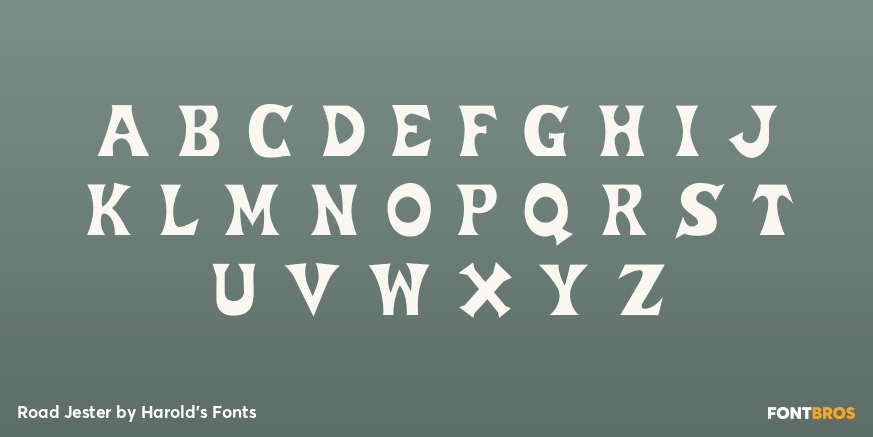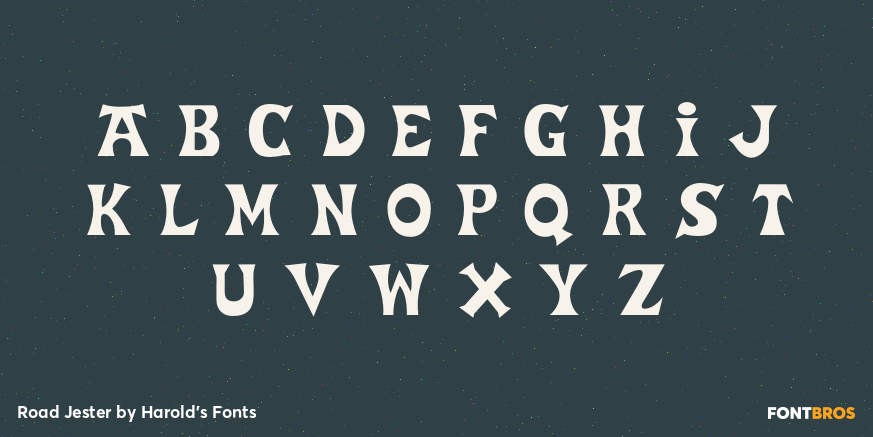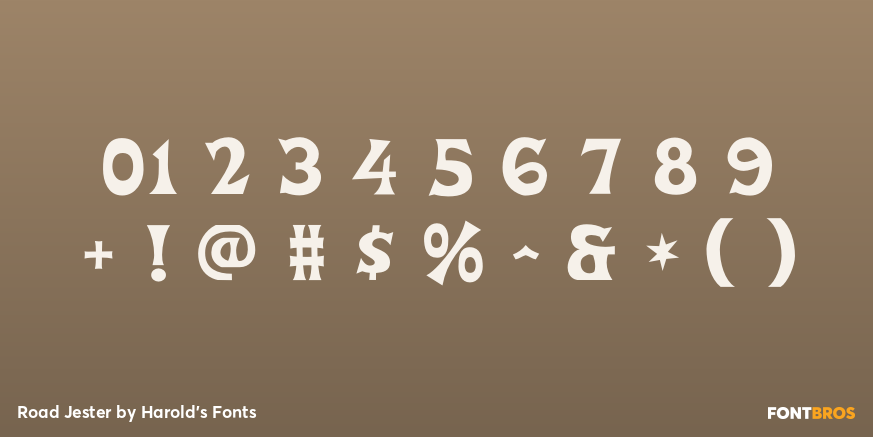
Road Jester
Font Family by Harold's Fonts
ROAD JESTER is bold and playful, suggesting the hand-lettered signs you might find in a sleepy beach town. Road Jester was inspired by the logo of Trader Joe's, the offbeat grocery chain; additional characters were inspired by Basque-style lettering. A matching stencil font provides an exotic shipping crate feel.
ROAD JESTER 2.1 has an expanded character set and improved spacing and kerning.